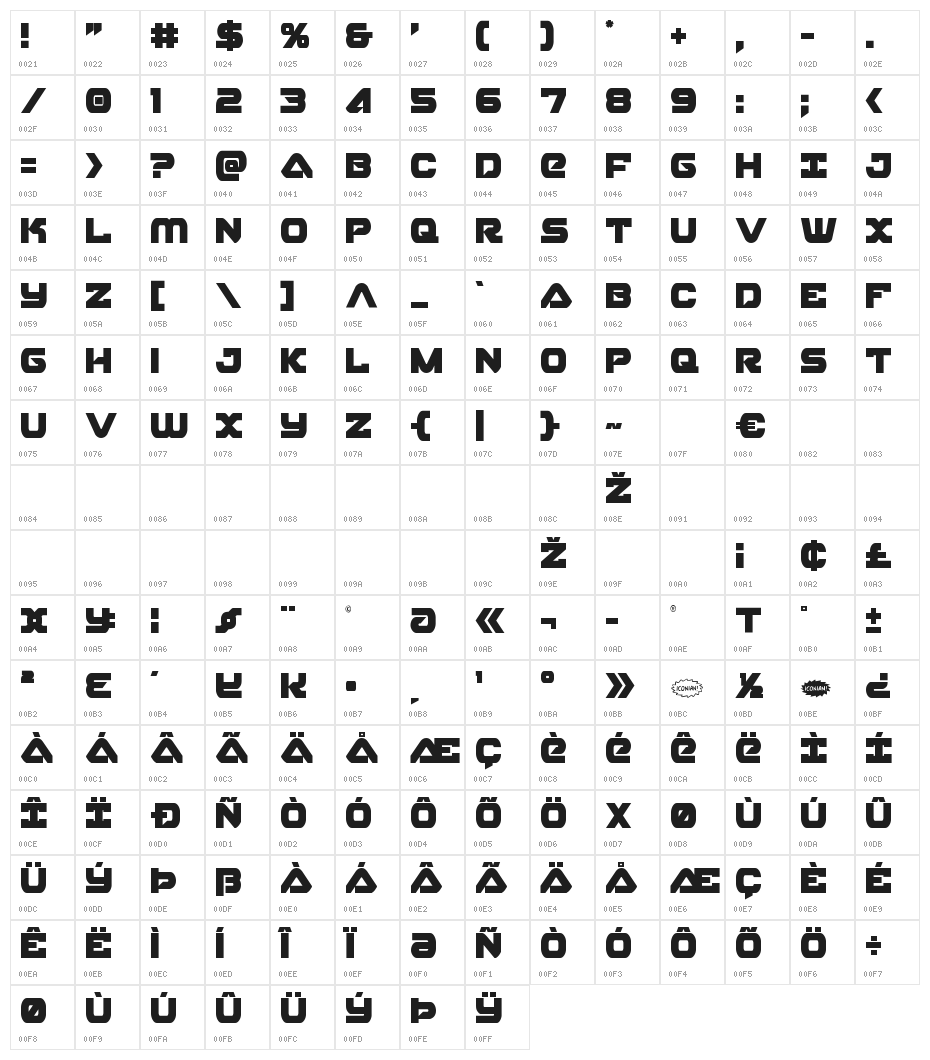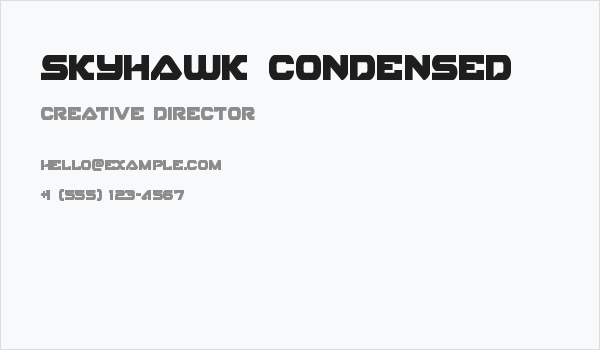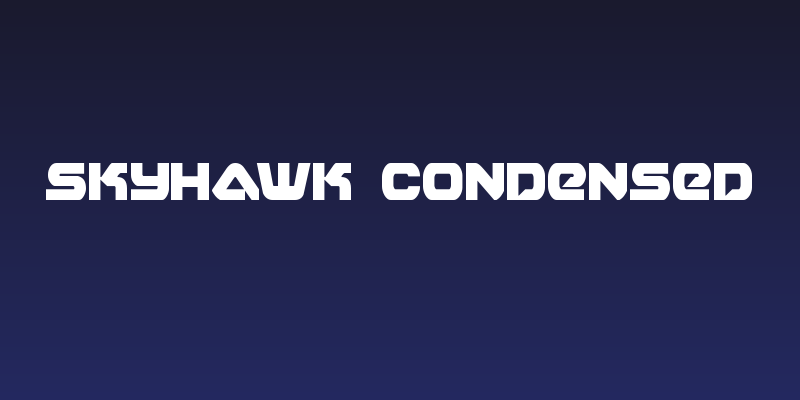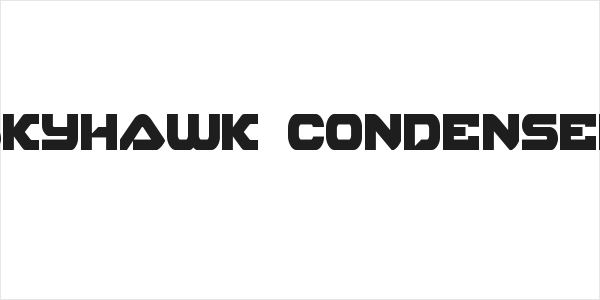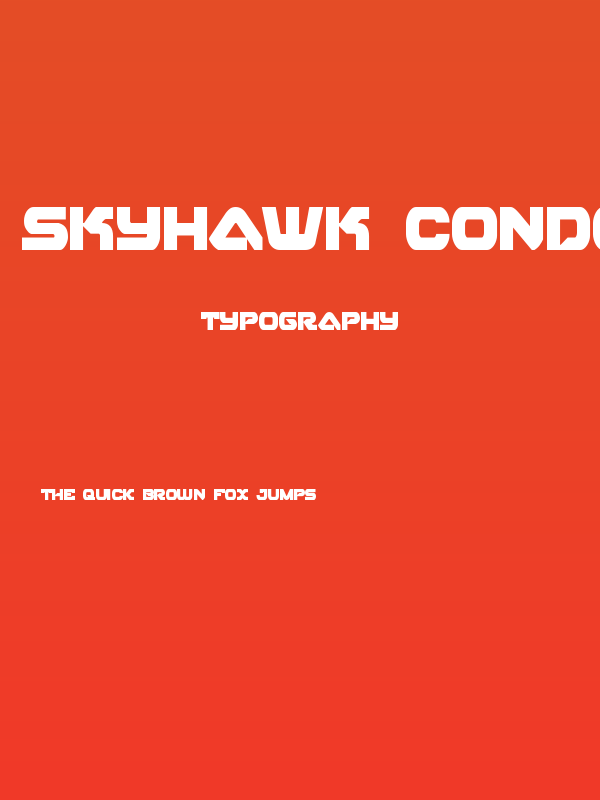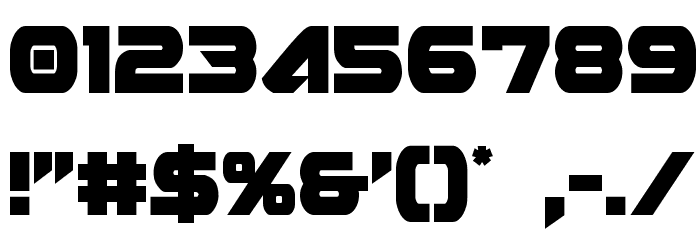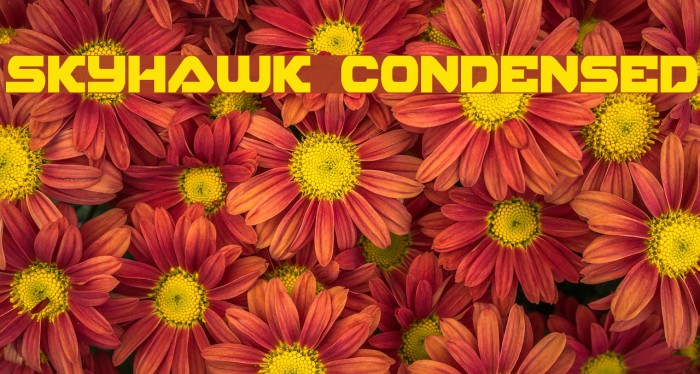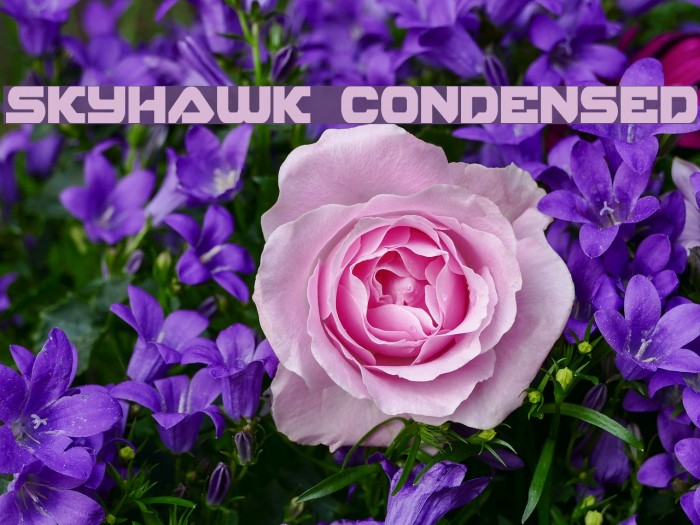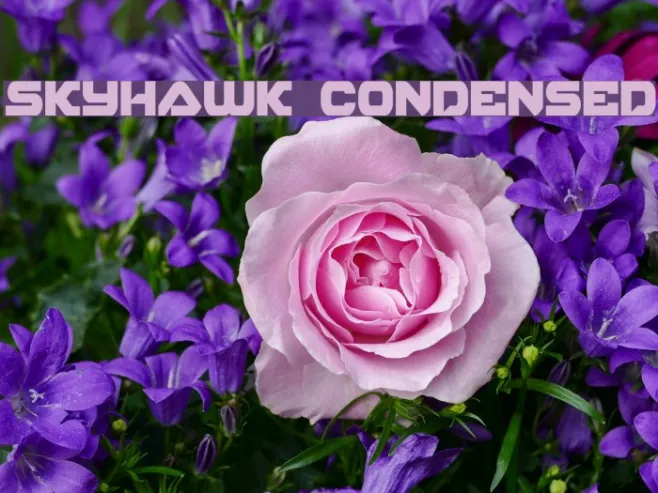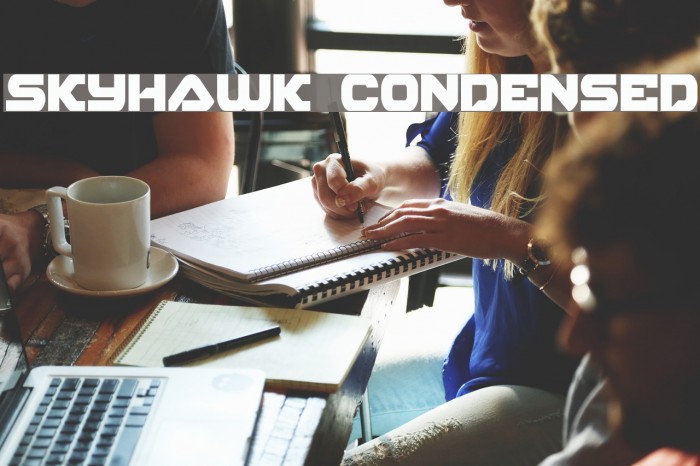
Skyhawk Condensed Font
Skyhawk Condensed Description
This font features a bold, geometric style with a condensed width, giving it a strong and impactful presence. The characters are constructed with sharp angles and straight lines, creating a futuristic and industrial feel. The uppercase letters are particularly striking, with a uniform height and consistent stroke weight. The numerals and special characters maintain the same boldness and geometric design, ensuring a cohesive look across all elements. This font is designed to stand out, making it ideal for attention-grabbing headlines and titles.
| Proposed Projects | Ideal for use in branding, posters, and headlines where a modern and bold statement is needed. |